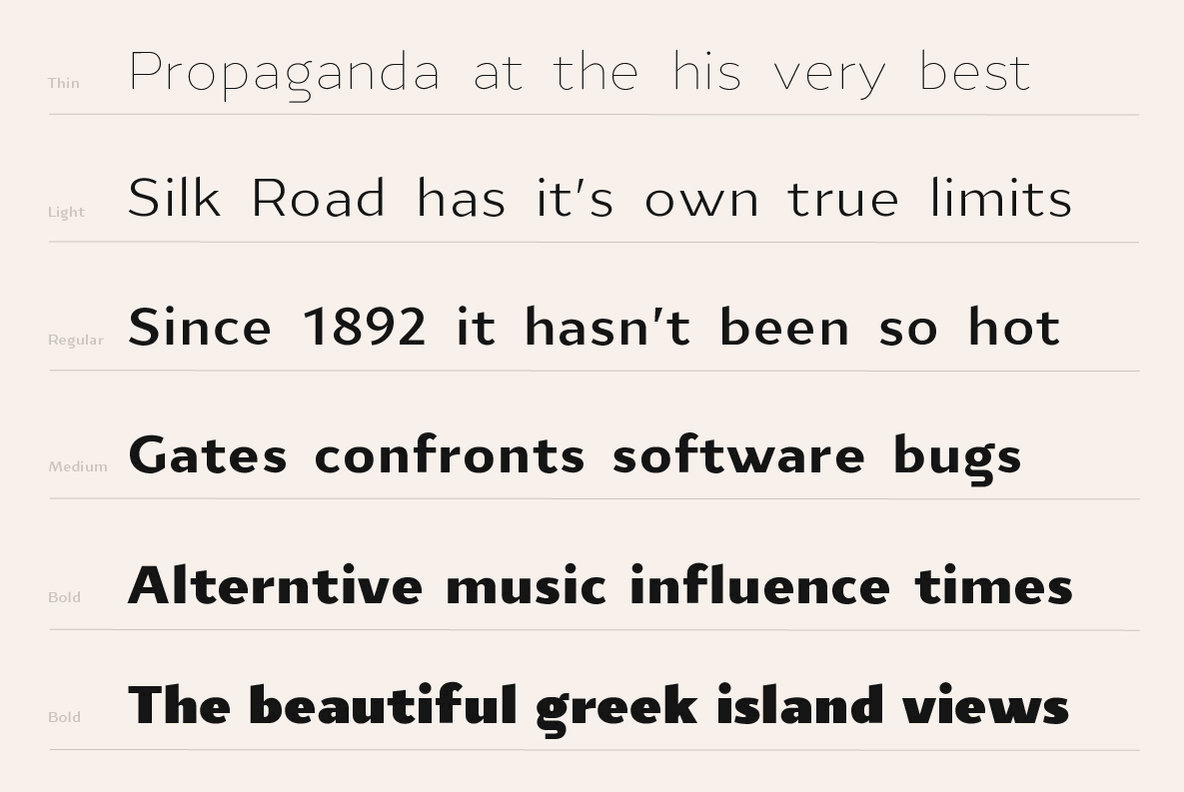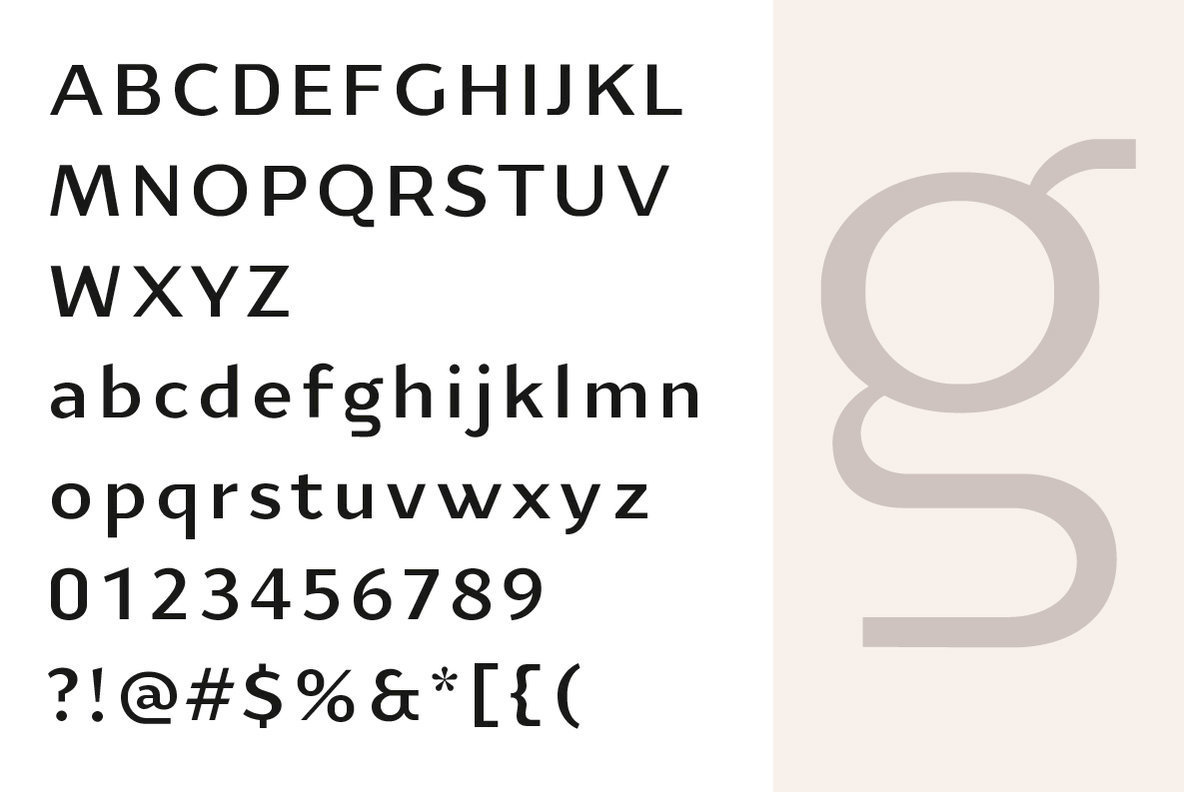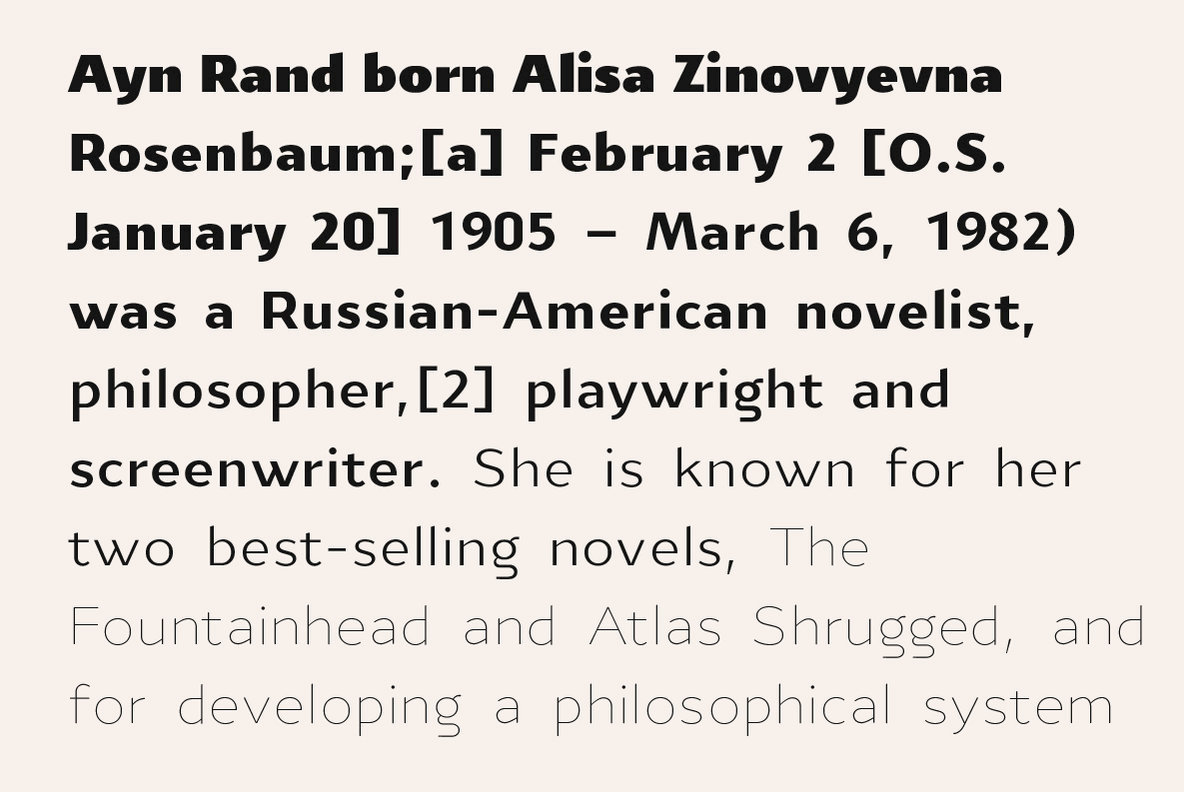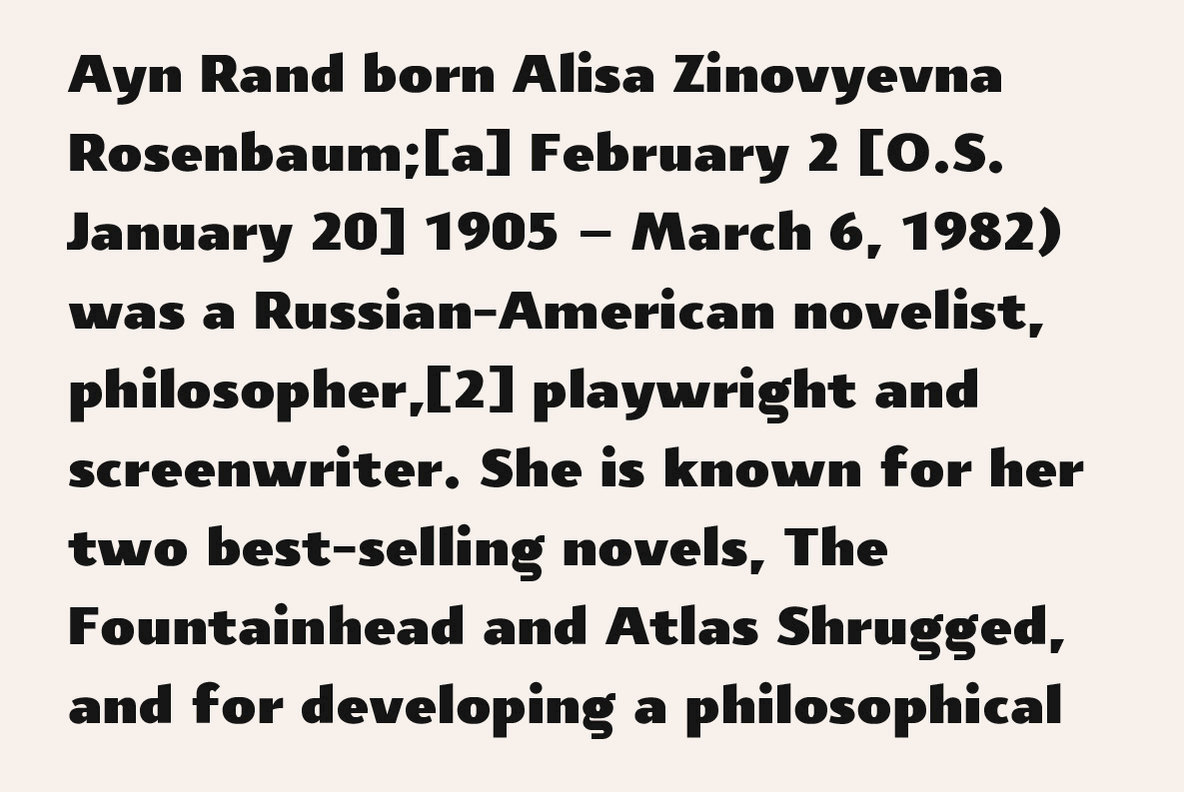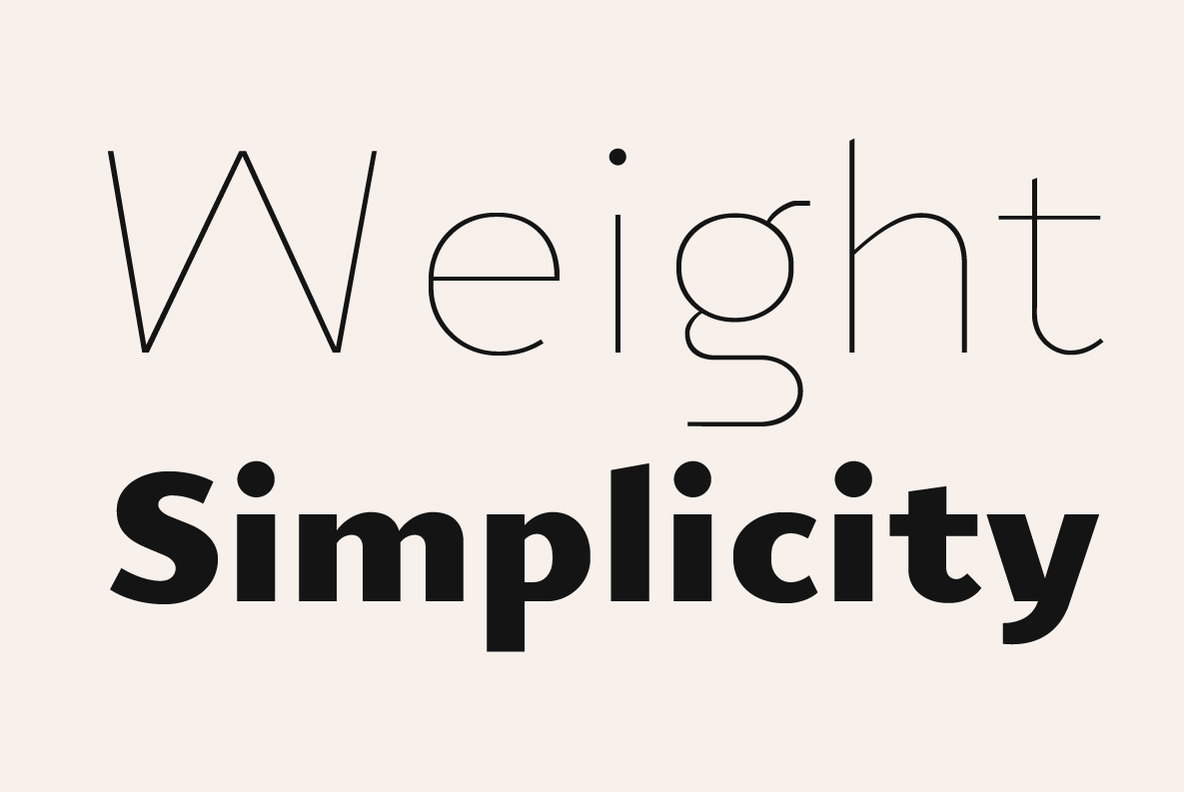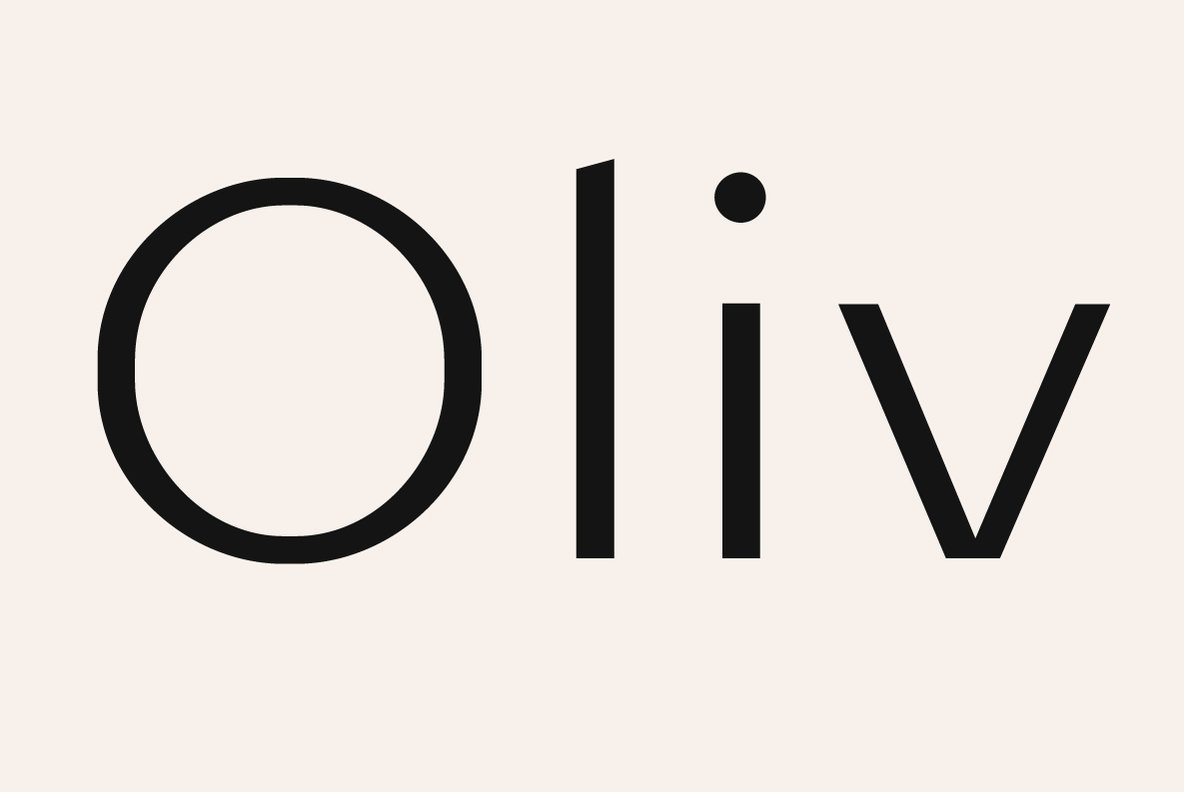
YE PlainSans Font
’PlainSans’ typeface, developed to be used for everyday needs.
he’s plain, transparent in his environment, and yet delivers a unique interpretation to the latin type.
The graphic language has a stable structure that conveys simplicity and a familiar look.